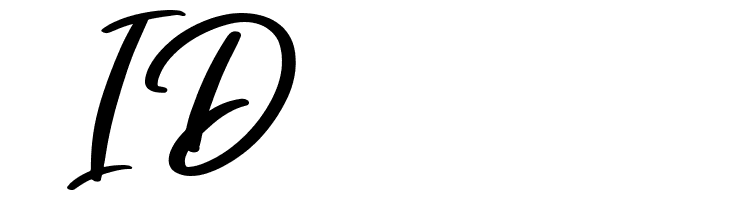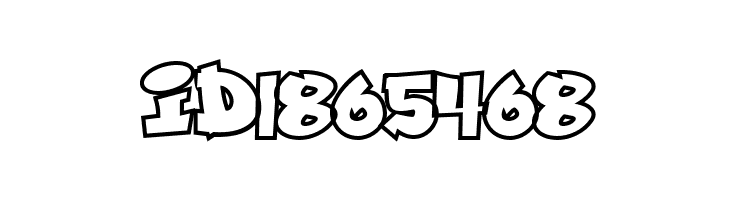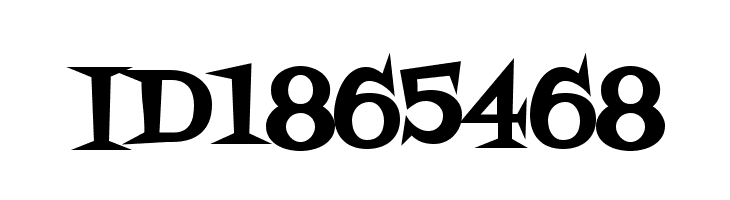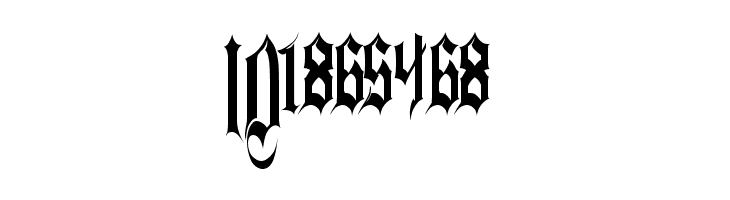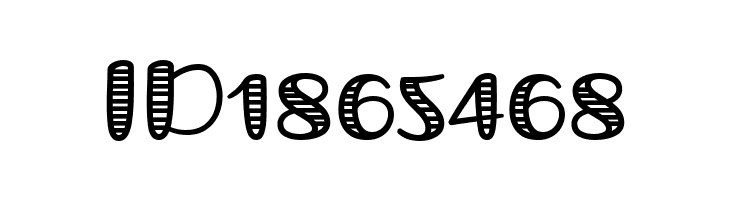
• Gothferatu
• Gotika Apvalus
( Fonts by Audrius Skersys - www.extate.lt )
A bold, Gothic-style font with rounded terminals and ornate details.
• Gotika Brokas
( Fonts by Audrius Skersys - www.extate.lt )
A bold, gothic-style font with sharp angles and dramatic contrast.
• Gotika Serifai B
( Fonts by Audrius Skersys - www.extate.lt )
A gothic-inspired serif font with sharp angles and decorative elements.
• Gotten Say
A dynamic, handwritten-style font with medium contrast and playful energy.
• Grachi
• Grachi 2
• Grafitty
A bold, graffiti-inspired font with thick outlines and dynamic shapes.
• Grand Lethals
( Marty Bampton )
A tall, narrow font with high contrast and angular serifs, perfect for dramatic designs.
• Grande October Four
( 7NTypes - Situjuh Nazara - 7ntypes.com )
A playful, decorative font with striped, rounded characters.